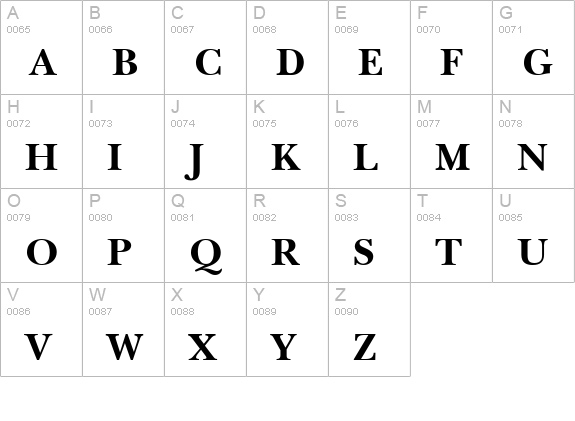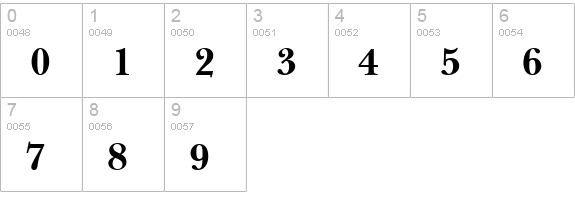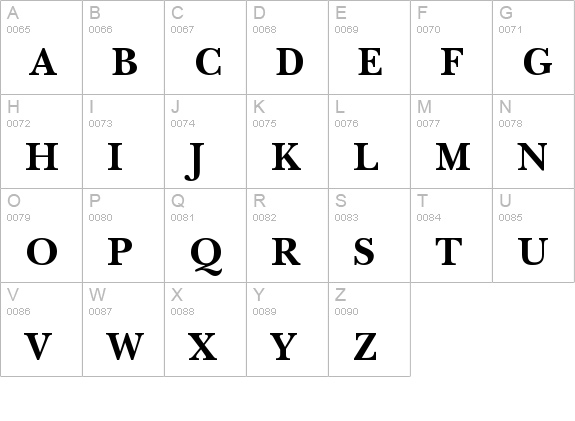
Nebraska Bold Font Details
Nebraska Bold is a strong, high-contrast variant in the Nebraska typeface family \xE2\x80\x94 well suited to headlines, attention-grabbing titles, and strong calls-to-action.
Nebraska Bold font is a striking and modern typeface that exudes confidence and strength. Its bold, blocky letterforms make a bold statement in any design project. Whether you're looking to create eye-catching headlines or impactful branding, Nebraska Bold is the perfect choice. What makes Nebraska Bold even more appealing is that it is available for free download at FontsMarket.com. This means you can easily access this powerful font and incorporate it into your designs without any cost. Don't miss out on the opportunity to enhance your projects with the bold elegance of Nebraska Bold font. Download it today and make a bold impression!